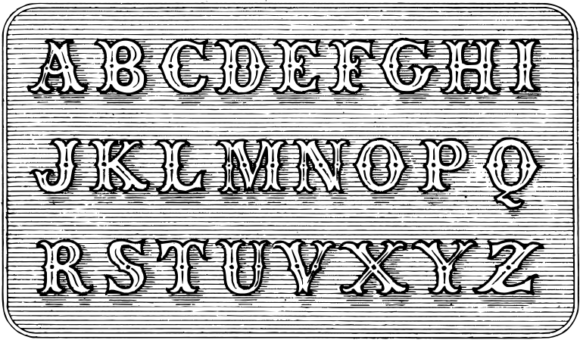
Tagwood Font
Journey through the era of vintage typography with Tagwood, the captivating display font inspired by the rugged charm of Victorian wood types. Designed by the visionary minds at Intellecta Design, Tagwood is not just a font; it's a portal to a bygone era where craftsmanship and aesthetics intertwined.
Its bold and robust strokes evoke the authenticity of weathered wood, reminiscent of rustic signboards and antique posters. Tagwood's unique character adds an instant touch of nostalgia and charm to your designs, transporting you back to a time when typography was an art form.
Unleash your creativity and let Tagwood take center stage in your projects. Whether you're designing logos, posters, invitations, or social media graphics, Tagwood commands attention with its distinctive personality. Its rough edges and imperfect beauty create a striking contrast against modern design elements, adding depth and texture to your work.
Tagwood is more than just a font; it's an experience. It's an invitation to embrace the past and fuse it with the present, creating designs that resonate with authenticity and character. With Tagwood, your designs will exude a timeless charm that captivates and engages your audience.